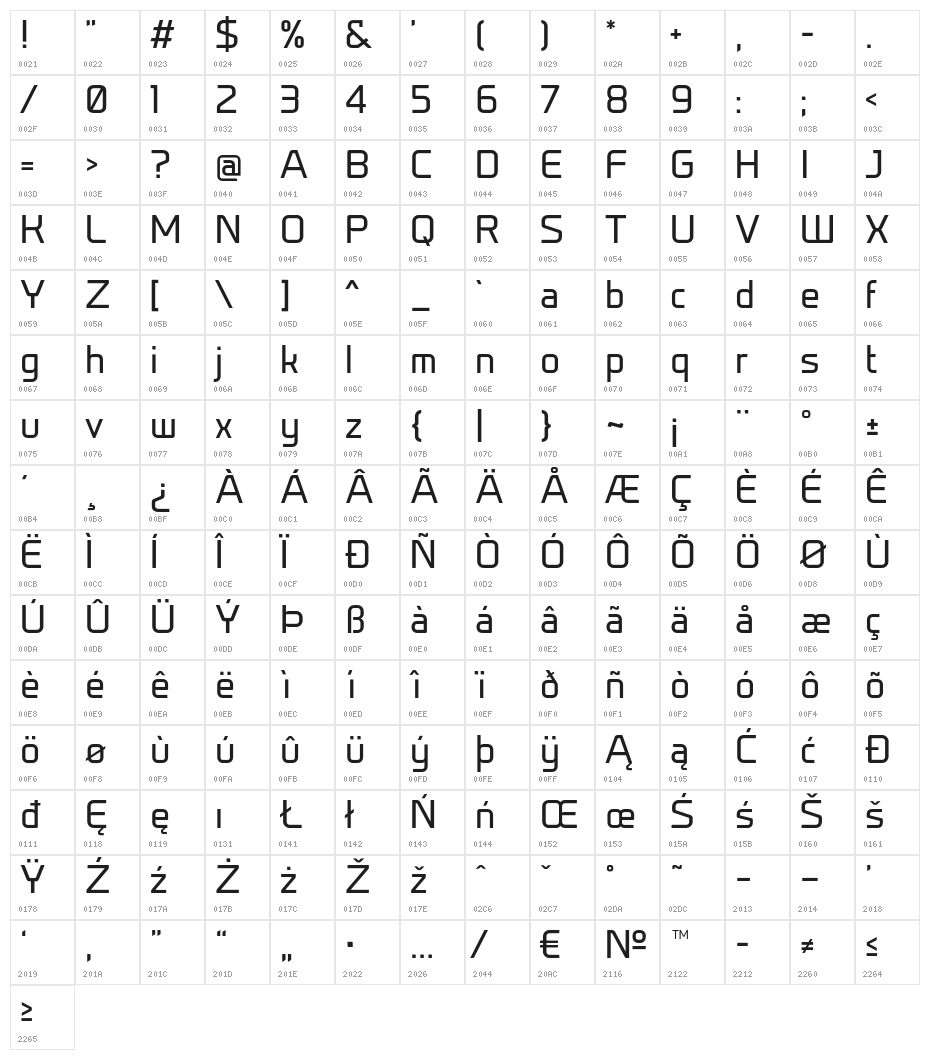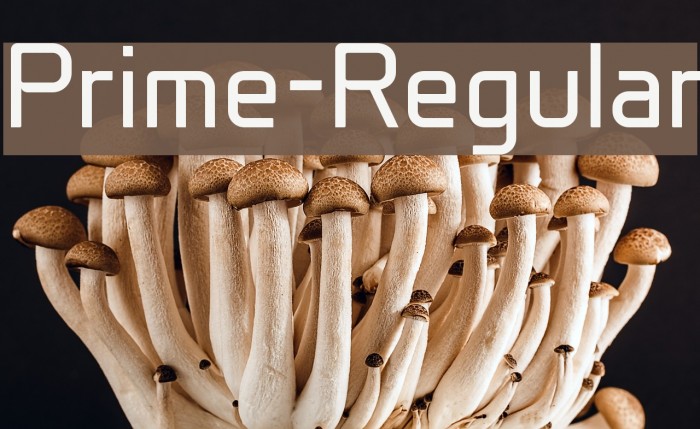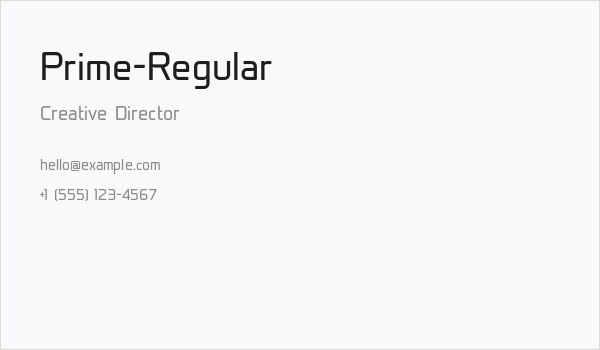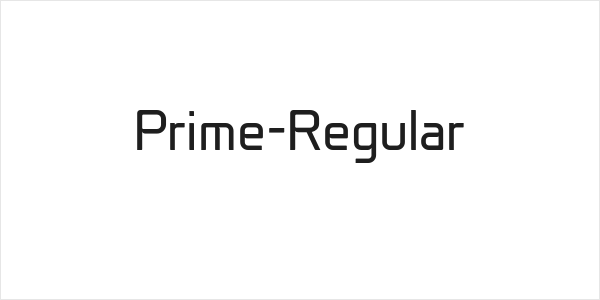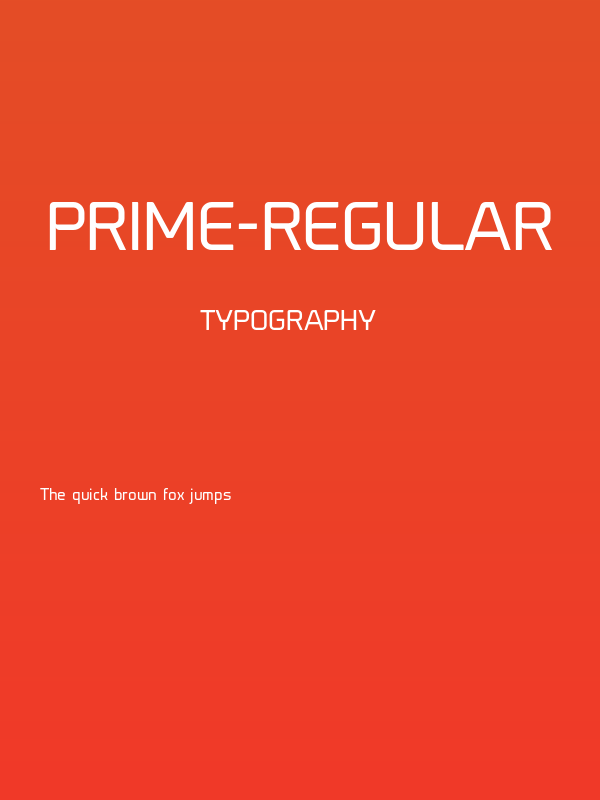
Prime-Regular Font
Prime-Regular Description
This font features a clean, geometric design with a modern aesthetic. Its characters are uniformly structured, offering a sense of balance and precision. The uppercase and lowercase letters maintain a consistent height, contributing to a streamlined appearance. The numerals are clear and easy to read, making them suitable for various applications. Special characters are well-defined, enhancing the font's versatility. The overall design is minimalistic, with a focus on clarity and functionality, making it ideal for contemporary projects.